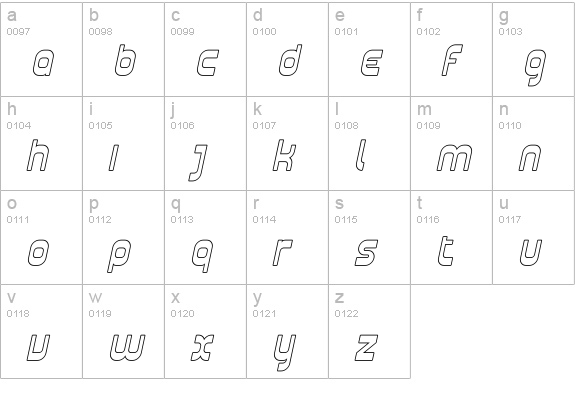
Plasmatica Outline Italic is a distinctive, italic variant in the Plasmatica typeface family \xE2\x80\x94 well suited to design and typography projects.
Plasmatica Outline Italic font is a stunning typeface that combines elegance and modernity in a unique way. With its sleek and sophisticated design, this font is perfect for adding a touch of style to any project. The italicized outline adds an extra level of flair, making it stand out from the crowd. Whether you're designing a logo, creating a poster, or crafting a website, Plasmatica Outline Italic font will elevate your design to new heights. Its clean lines and smooth curves give it a contemporary feel, while its bold presence commands attention. This font is versatile enough to be used in both headings and body text, making it a valuable asset for any designer. One of the best things about Plasmatica Outline Italic font is that it is free! That's right, you can download it at no cost from FontsMarket.com. This means that you can enjoy its premium quality without having to spend a penny. It's a fantastic opportunity for designers, students, and anyone looking to enhance their creative projects without breaking the bank. Don't miss out on this incredible font. Download Plasmatica Outline Italic font today and experience the freedom of creativity it offers. With its sleek design, versatility, and the fact that it is freely available, there's no reason not to add this font to your collection. Let Plasmatica Outline Italic font be your secret weapon in creating visually stunning designs that leave a lasting impression.